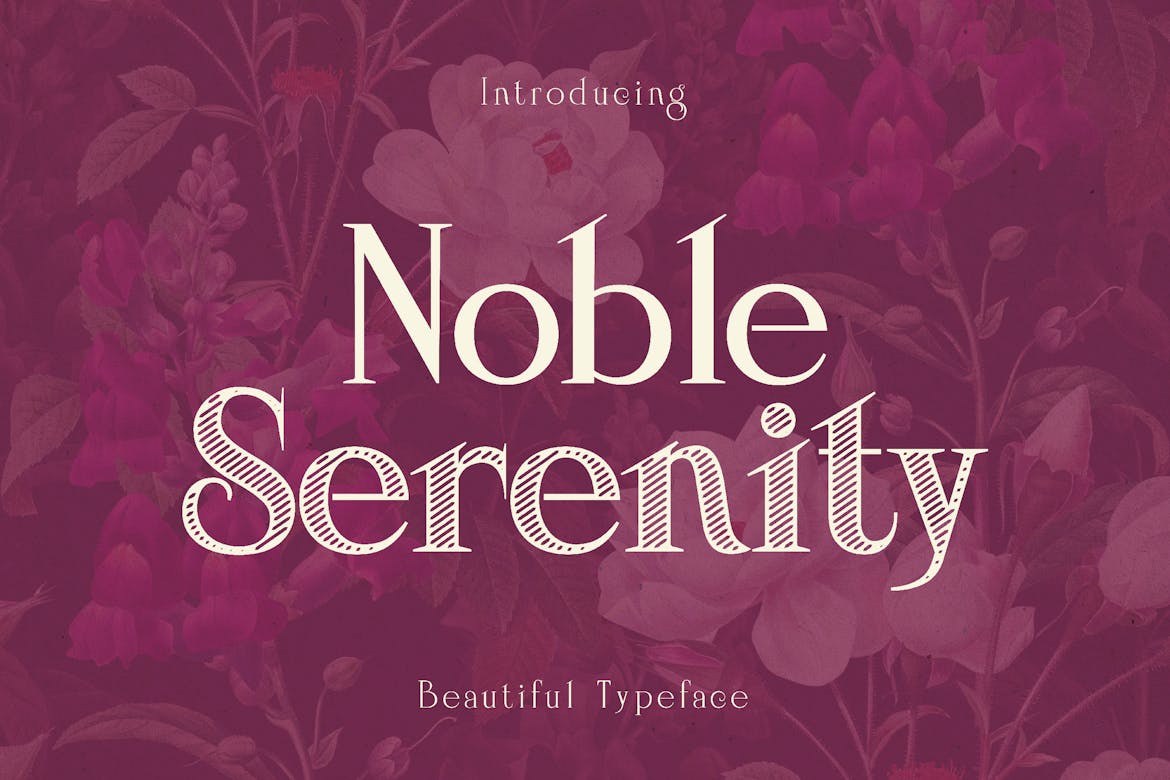
Noble Serenity - Elegant Wedding Typeface Font
The Noble Serenity - Elegant Wedding Typeface Font is perfect for wedding invitations, bridal shower cards, engagement announcements, romantic greeting cards, luxury event stationery, anniversary celebrations, love letter designs, and elegant social media graphics.
What makes Noble Serenity - Elegant Wedding Typeface Font so exciting is its exquisite balance of romantic elegance and timeless sophistication that captures the essence of eternal love and celebration. This breathtaking typeface features graceful flowing curves, delicate flourishes, and refined letterforms that evoke the beauty and sanctity of matrimonial traditions. Each character demonstrates meticulous craftsmanship with subtle decorative elements that enhance readability while maintaining an air of luxury and romance. The font's harmonious proportions and elegant spacing create a sense of serenity and peace, making it perfect for couples who want their special day communications to reflect the profound beauty and significance of their union.
The Noble Serenity - Elegant Wedding Typeface Font family includes comprehensive variations designed to meet every romantic occasion requirement. The collection typically features multiple weights from Light to Bold, each preserving the signature elegant characteristics. Many versions include italic styles with enhanced flourishes, decorative alternates with ornate swashes, romantic ligatures, and extended character sets supporting international languages for multicultural wedding celebrations and global romantic communications.
The font's versatility extends beautifully across all wedding-related applications, from digital save-the-dates to printed ceremony programs. Its carefully balanced elegance maintains readability at various sizes while preserving the romantic character that makes wedding stationery so special and meaningful to couples and their guests.
Professional wedding planners and graphic designers worldwide trust this elegant typeface for their most important romantic projects. Whether creating complete wedding stationery suites, designing anniversary celebrations, or developing branding for wedding-related businesses, this font delivers the perfect combination of romantic beauty and professional quality that makes every love story shine.